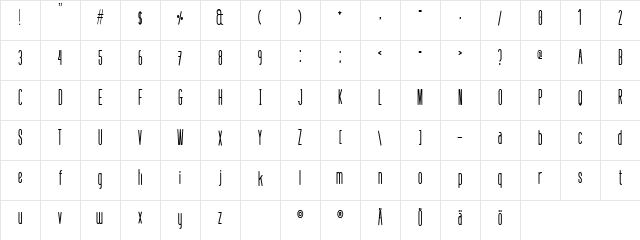
defatted milk Condensed Free Font
defatted milk Condensed
Style: Condensed
Foundry: Nils von Blanc
Designer: Nils von Blanc
Design Context for defatted milk
defatted milk is a composed and adaptable typeface that performs quietly and consistently across a wide range of design contexts. Its narrow stance lets it pack a punch even in space-constrained designs.